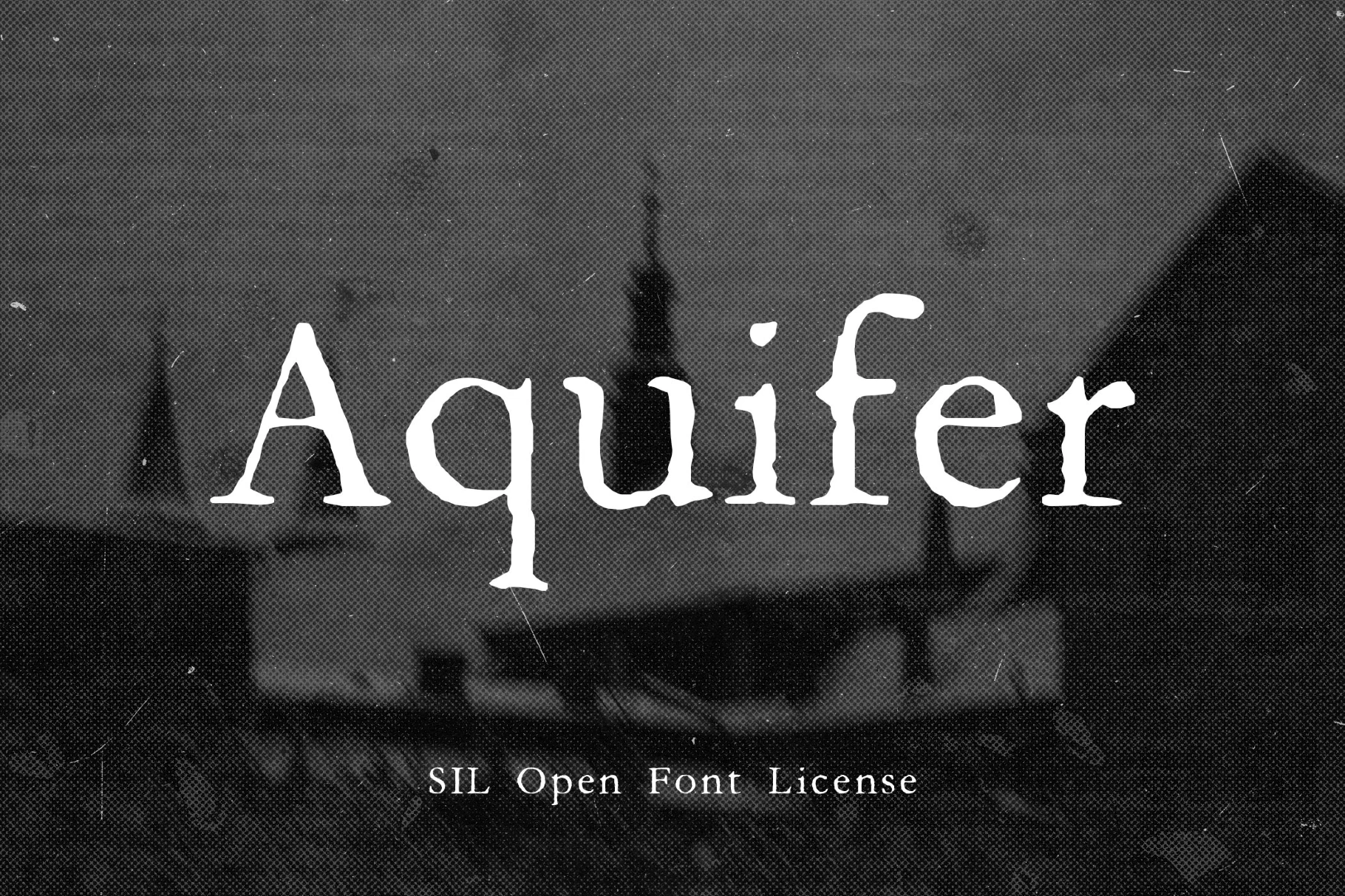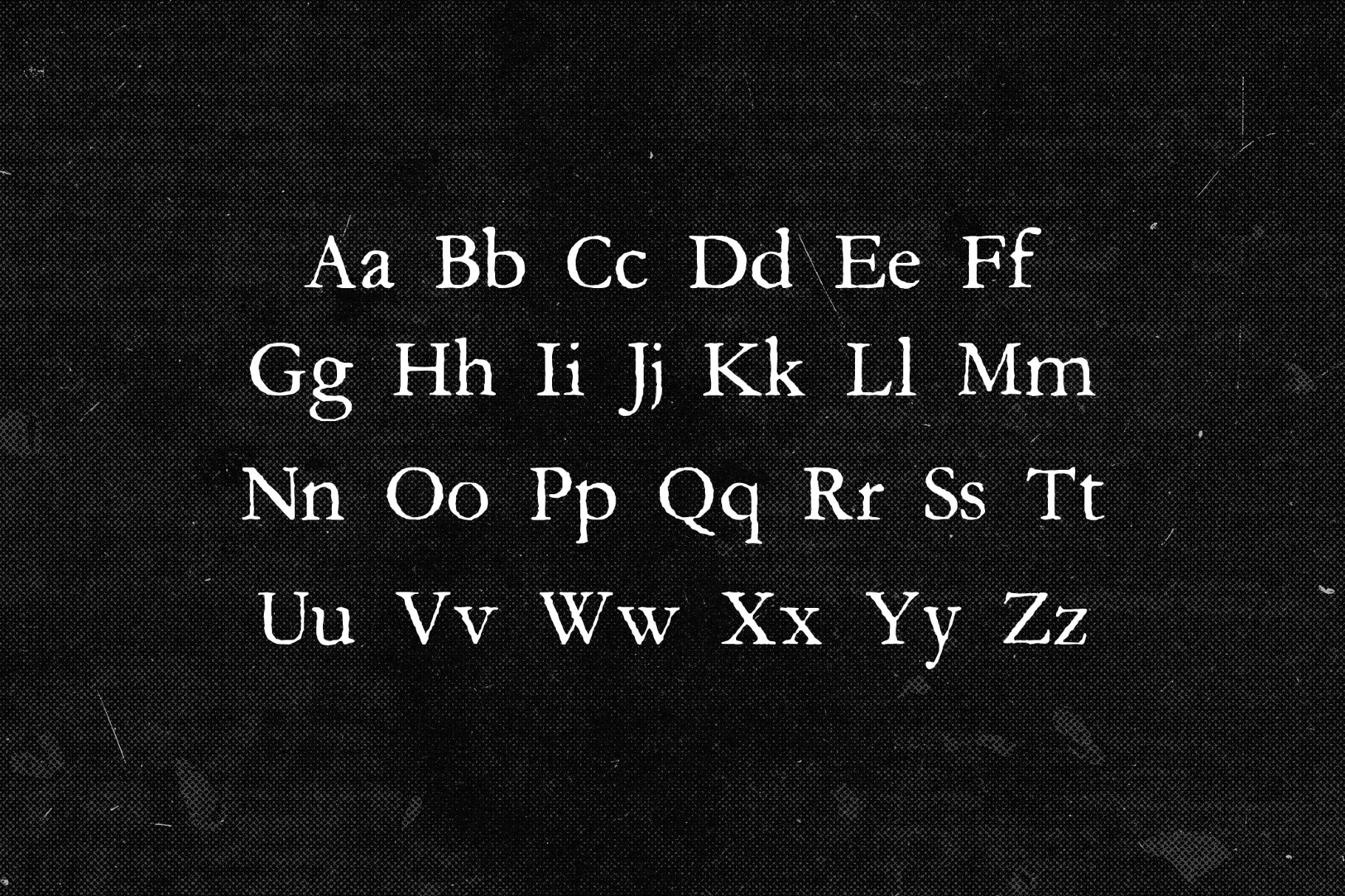
Aquifer Font
Aquifer is rooted in traditional typography, but the surface looks weathered, giving the text a timeworn presence, that's darker and more atmospheric. Such a creepy type works especially well in projects that build tension through mood — vintage horror posters, gothic editorials, book covers, film titles, or themed branding.